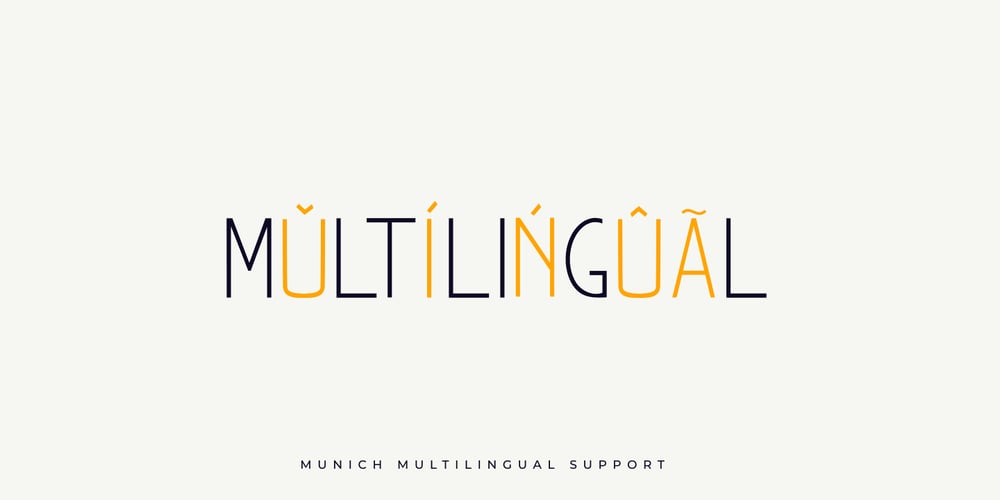
Munich Sans Font Family was designed by Eldertype Studio and published by Eldertype Studio. Munich Sans contains 1 styles and family package options. Munich Sans is minimalist and modern sans serif font. This font fits in any project. You can use it for a title, logo, quotes, or as a pairing in any script font. It is inspired by minimalist and geometric forms. This font creates modern minimal style. This font also supports multi-language!